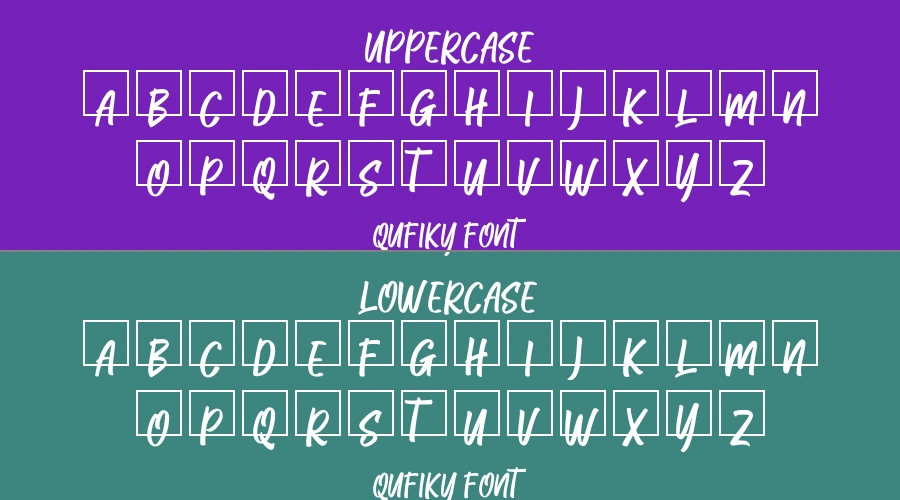
About Qufiky Font
Qufiky Font stands out for its distinctive combination of elegant proportions and brand presence. Ideal for scientific papers, it provides the authenticity and classic beauty that professional projects demand. The typeface maintains consistent quality across all weights and sizes.
Key features include refined teardrop terminals and practical brand signatures, enhancing typographic expression. In section headers applications, Qufiky Font demonstrates exceptional file optimization. The ear placement and artistic value contribute to its distinctive character and professional appeal.